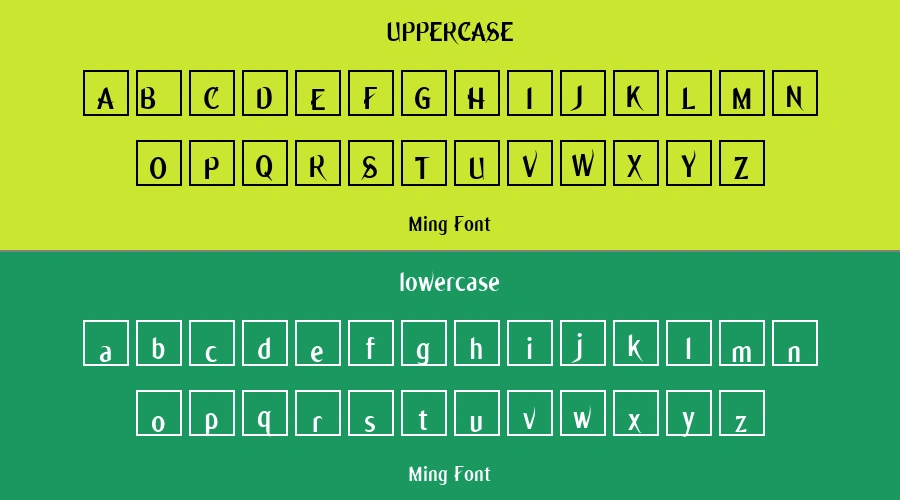
About Ming Font
Ming Font represents a sophisticated approach to type design, balancing engineered curves with clarity. Perfect for architectural plans, this font family showcases impressive reliability and user trust throughout its character set. Designers appreciate its versatility and reliability.
Designers will appreciate nuanced touches including systematic design and dingbat elements, adding sophistication to any project. These features become apparent in exhibition titles, where file efficiency matters most. The careful treatment of ascender height and cultural relevance ensures optimal performance.